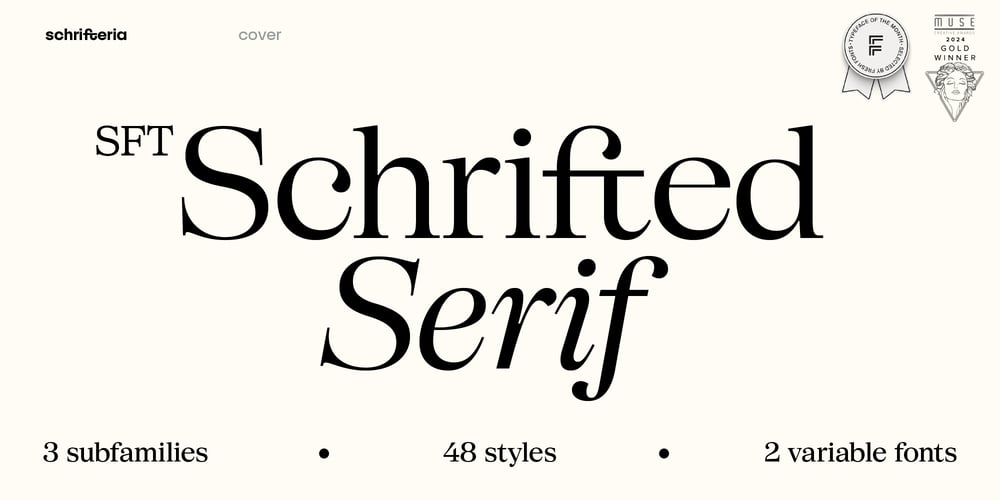
SFT Schrifted Serif Font Family was designed by Yulia Gonina and published by Schrifteria Foundry. SFT Schrifted Serif contains 50 styles and family package options. ContactsFollow us on Instagram @schrifteriafoundry to know all about our future projects and updates.If you want to customize SFT Schrifted Sans, need font files or have any other questions, please reach out to us at info@schrifteria.xyzAbout SFT Schrifted SerifLike its older sibling, SFT Schrifted Sans, this font draws inspiration from the visual environment of Stockholm, but with a more romantic touch, predominantly inspired by the districts of Gamla Stan and Södermalm. Graceful historic buildings, bold usage of antiqua in unexpected contexts, and an overall dynamic, lively, organic mood with botanical motifs leave no one indifferent.GraphicsThe font is constructed upon smooth and graceful curves that convey a sense of lively movement. You’ll find numerous rounded closed shapes with endings resembling droplets, which allude to botanical motifs. The structure of the SFT Schrifted Serif letters echoes those of the SFT Schrifted Sans, making them ideal companions.FamilyThis typeface consists of three optical sizes. “Text” is for use in small sizes and long passages of text. “Display” is for expressive and large headlines. “Subhead” is a versatile font suitable for both text and small-sized headlines.Language supportLatin: Abenaki, Afaan-Oromo, Afar, Afrikaans, Albanian, Alsatian, Amis, Anuta, Aragonese, Aranese-Aromanian, Arrernte, Arvanitic (Latin), Asturian, Atayal, Aymara, Azerbaijani, Bashkir-(Latin), Basque, Belarusian (Latin), Bemba, Bikol, Bislama, Bosnian, Breton, Cape-Verdean-Creole, Catalan, Cebuano, Chamorro, Chavacano, Chichewa, Chickasaw, Cimbrian, Cofán, Cornish, Corsican, Creek, Crimean Tatar (Latin), Croatian, Czech, Danish, Dawan, Delaware, Dholuo, Drehu, Dutch, English, Esperanto, Estonian, Faroese, Fijian, Filipino, Finnish, Folkspraak, French, Frisian, Friulian, Gagauz (Latin), Galician, Ganda, Genoese, German, Gikuyu, Gooniyandi, Greenlandic (Kalaallisut), Guadeloupean-Creole, Gwich’in, Haitian-Creole, Hän, Hawaiian, Hiligaynon, Hopi, Hotcąk (Latin), Hungarian, Icelandic, Ido, Igbo, Ilocano, Indonesian, Interglossa, Interlingua, Irish, Istro-Romanian, Italian, Jamaican, Javanese-(Latin), Jèrriais, Kaingang, Kala-Lagaw-Ya, Kapampangan (Latin), Kaqchikel, Karakalpak-(Latin), Karelian (Latin), Kashubian, Kikongo, Kinyarwanda, Kiribati, Kirundi, Klingon, Kurdish-(Latin), Ladinlatinlatino-sine-Flexione, Latvian, Lithuanian, Lojban, Lombard, Low-Saxon, Luxembourgish, Maasai, Makhuwa, Malay, Maltese, Manx, Māori, Marquesan, Megleno-Romanian, Meriam-Mir, Mirandese, Mohawk, Moldovan, Montagnais, Montenegrin, Murrinh-Patha, Nagamese-Creole, Nahuatl, Ndebele, Neapolitan, Ngiyambaa, Niuean, Noongar, Norwegian, Novial, Occidental, Occitan, Onĕipŏt, Oshiwambo, Ossetian (Latin), Palauan, Papiamento, Piedmontese, Polish, Portuguese, Potawatomi, Q’eqchi’, Quechua, Rarotongan, Romanian, Romansh, Rotokas, Sami-(Inari-Sami), Sami (Lule-Sami), Sami (Northern-Sami), Sami (Southern-Sami), Samoan, Sango, Saramaccan, Sardinian, Scottish-Gaelic, Serbian-(Latin), Seri, Seychellois-Creole, Shawnee, Shona, Sicilian, Silesian, Slovak, Slovenian, Slovio-(Latin), Somali, Sorbian (Lower-Sorbian), Sorbian (Upper-Sorbian), Sotho (Northern), Sotho-(Southern), Spanish, Sranan, Sundanese (Latin), Swahili, Swazi, Swedish, Tagalog, Tahitian, Tetum, Tok-Pisin, Tokelauan, Tongan, Tshiluba, Tsonga, Tswana, Tumbuka, Turkish, Turkmen-(Latin), Tuvaluan, Tzotzil, Uzbek (Latin), Venetian, Vepsian, Volapük, Võro, Wallisian, Walloon, Waray-Waray, Warlpiri, Wayuu, Welsh, Wik-Mungkan, Wiradjuri, Wolof, Xavante, Xhosa, Yapese, Yindjibarndi, Zapotec, Zarma, Zazaki, Zulu, Zuni.Cyrillic: Adyghe, Akhvakh, Aleut (Cyrillic), Altaic, Andi, Archi, Avar, Bashkir, Belarusian (Cyrillic), Besermyan, Bosnian (Cyrillic), Bulgarian (Cyrillic), Buryat, Chechen (Cyrillic), Chukchi, Chulym, Chuvash, Dargwa, Dungan, Enets, Even (Lamut), Gagauz, Godoberi, Ingush, Kabardino-Cherkess, Karaim, Karakalpak, Karata (Karata-Tukita), Karelian, Kazakh (Cyrillic), Ket, Kildin Sámi, Kirghiz, Komi-Zyrian, Koryak, Kumyk, Lak, Lezgian, Macedonian, Moldavian (Cyrillic), Mongolian, Mordvin-moksha, Nanai, Nganasan, Oroch, Ossetian, Russian, Rusyn, Saami, Serbian (Cyrillic), Soyot-Tsaatan, Tabasaran, Tadzhik, Tatar Volgaic, Tindi, Touva, Tsez, Turkmen (Cyrillic), Udege, Udmurt, Uighur (Cyrillic), Ukrainian, Ulch, Uzbek (Cyrillic), Veps, Yukagir.